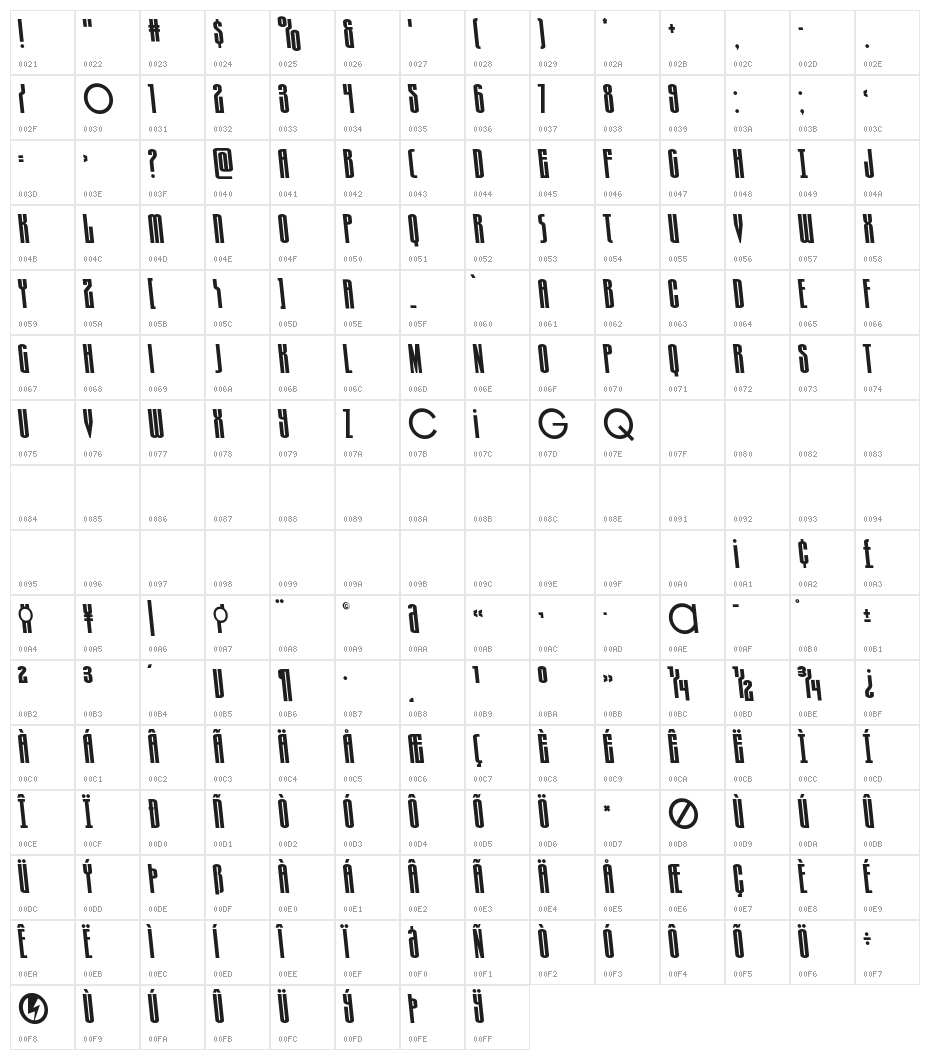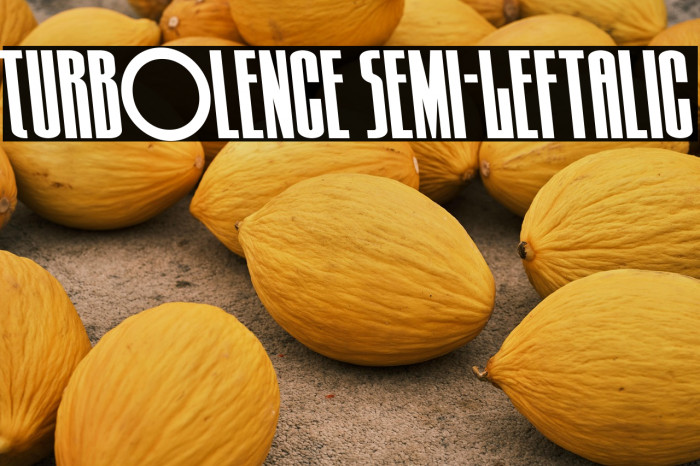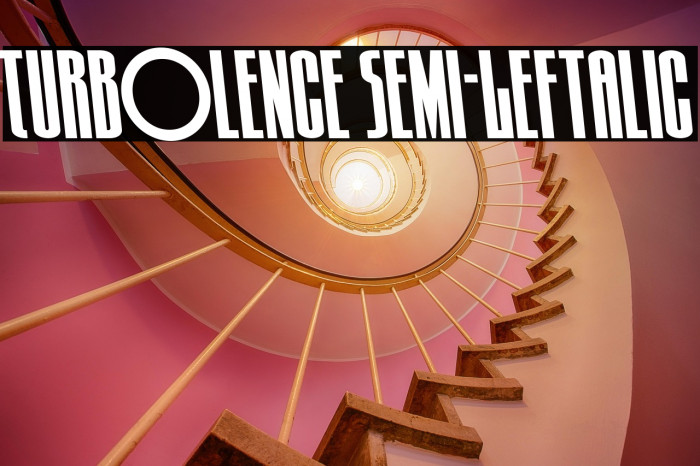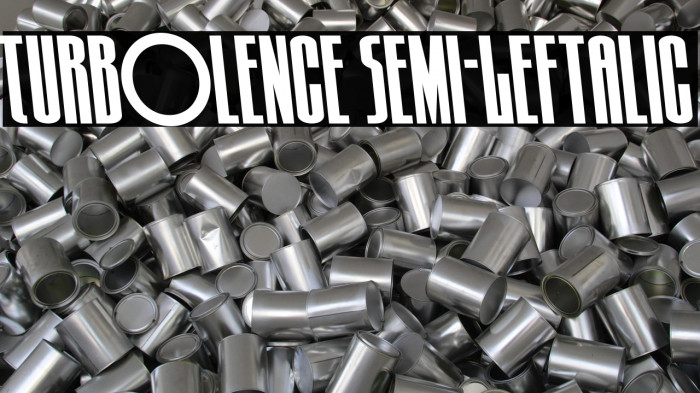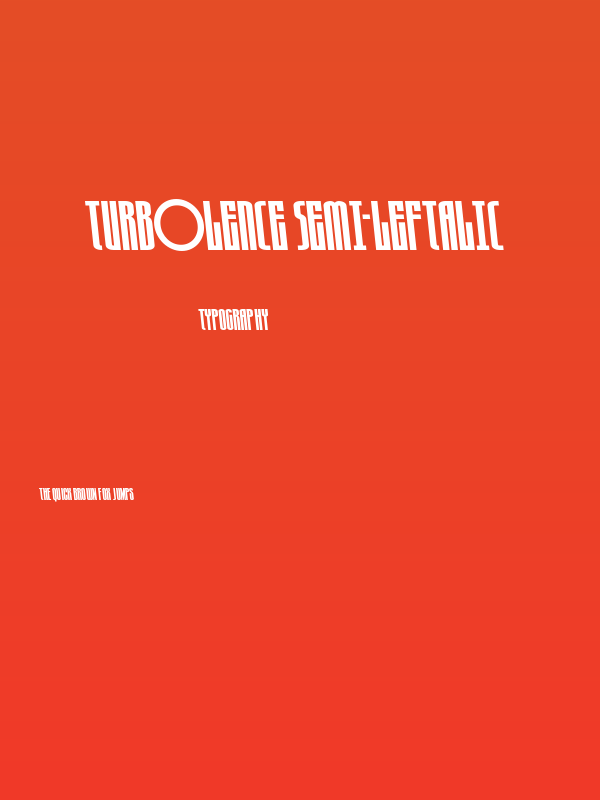
Turb0lence Semi-Leftalic Font
Turb0lence Semi-Leftalic Description
This font features a bold, condensed style with a distinct leftward slant, giving it a dynamic and energetic appearance. The characters are tall and narrow, with consistent stroke thickness that adds to its boldness. The uppercase and lowercase letters maintain a uniform height, enhancing its compact look. The numerals and special characters follow the same stylistic cues, ensuring a cohesive design. The font's sharp angles and clean lines make it suitable for attention-grabbing headlines and impactful designs.